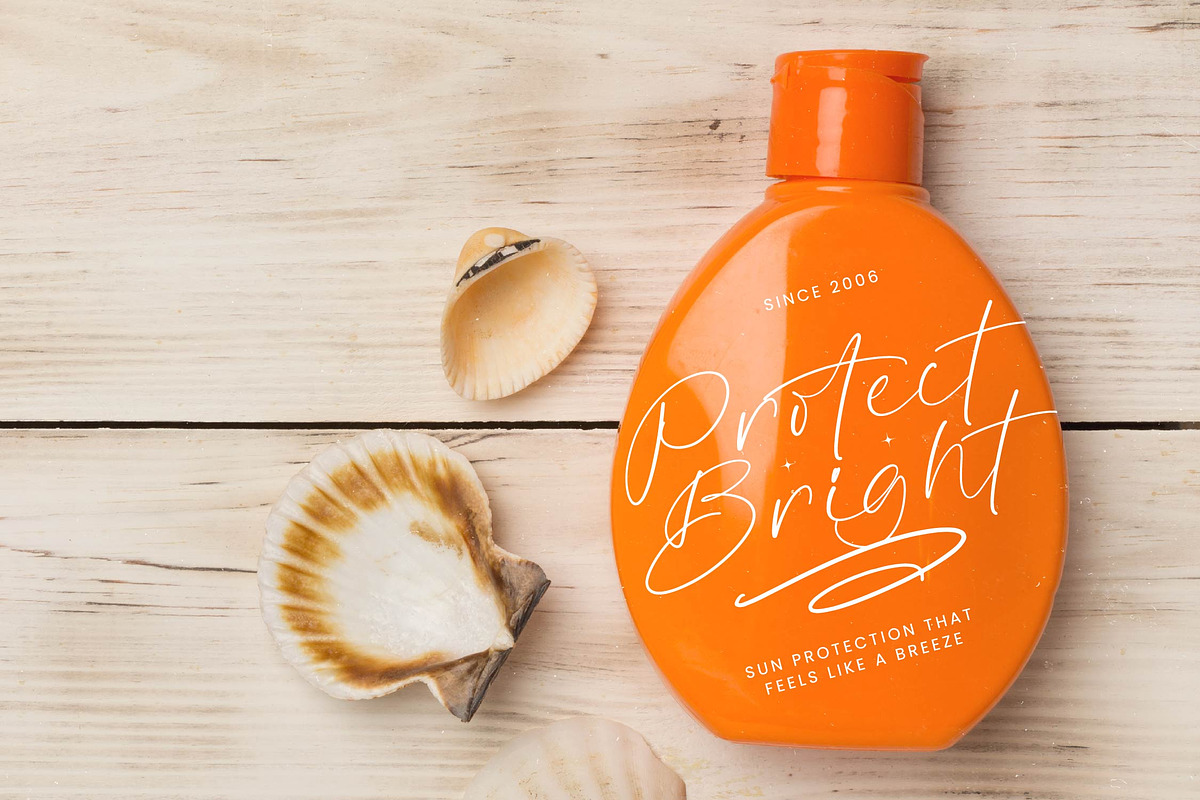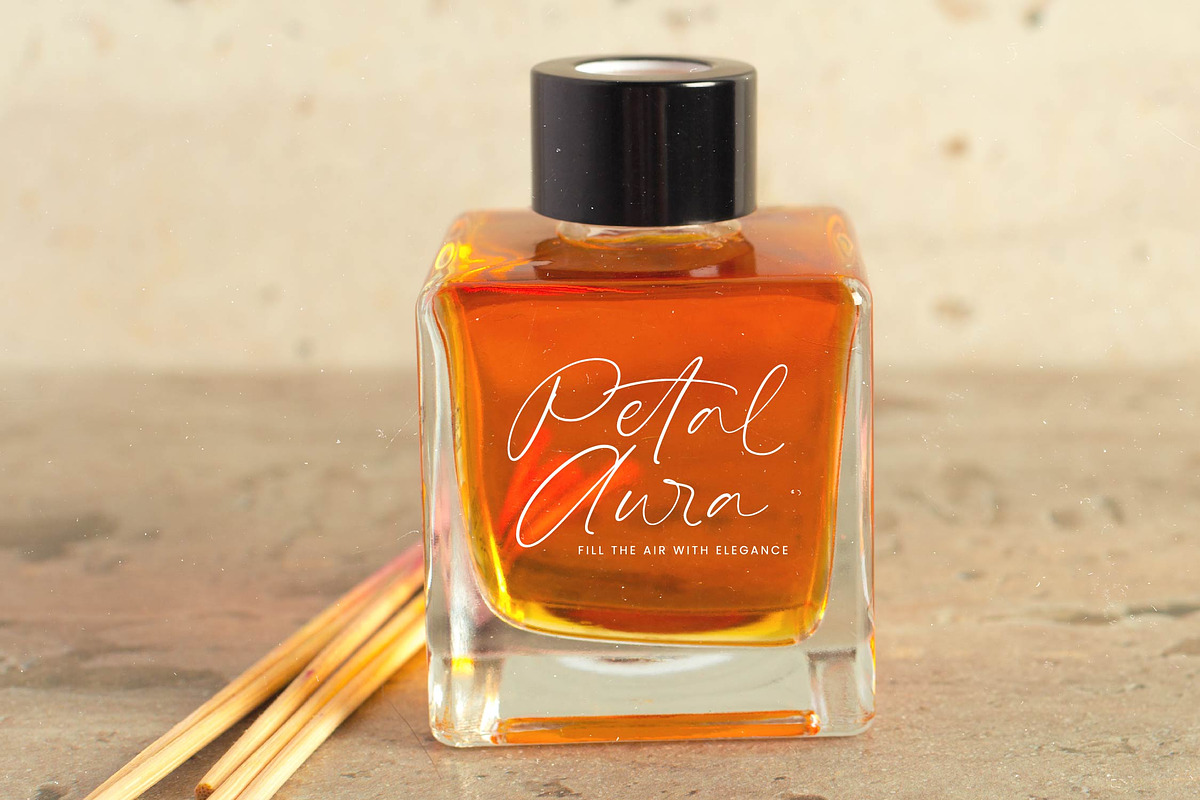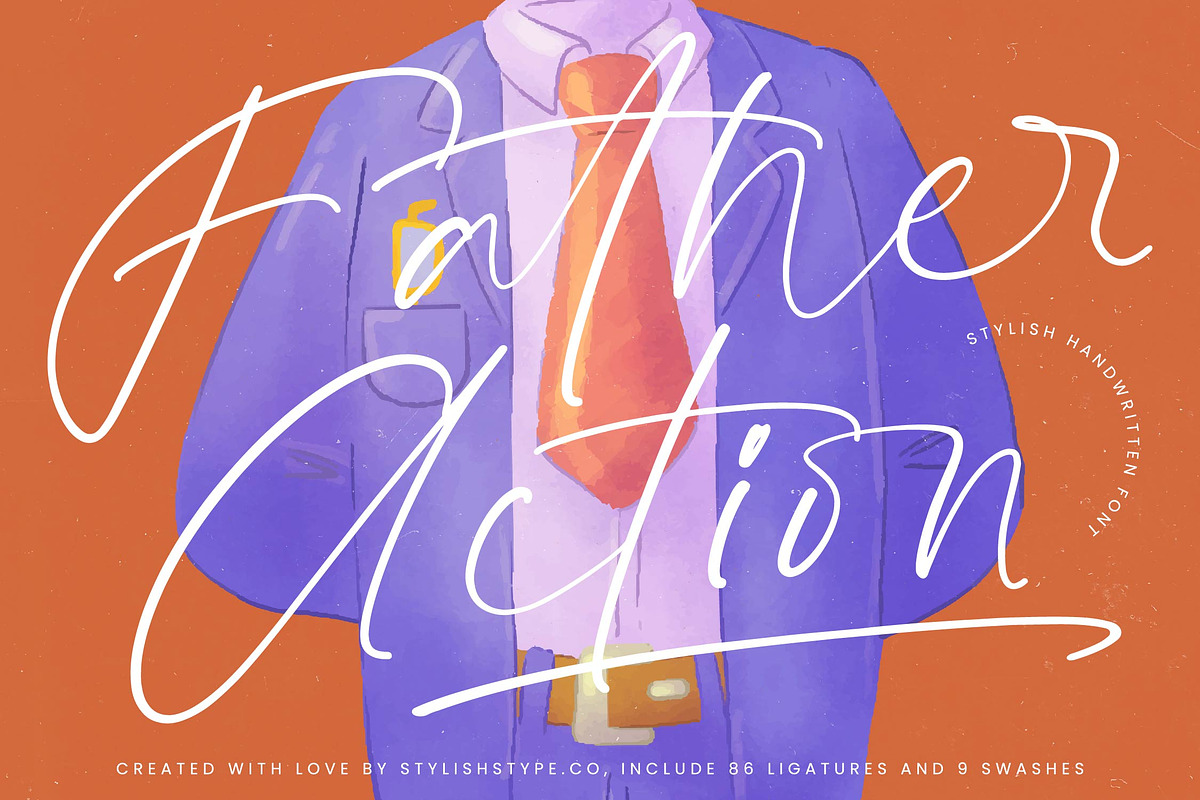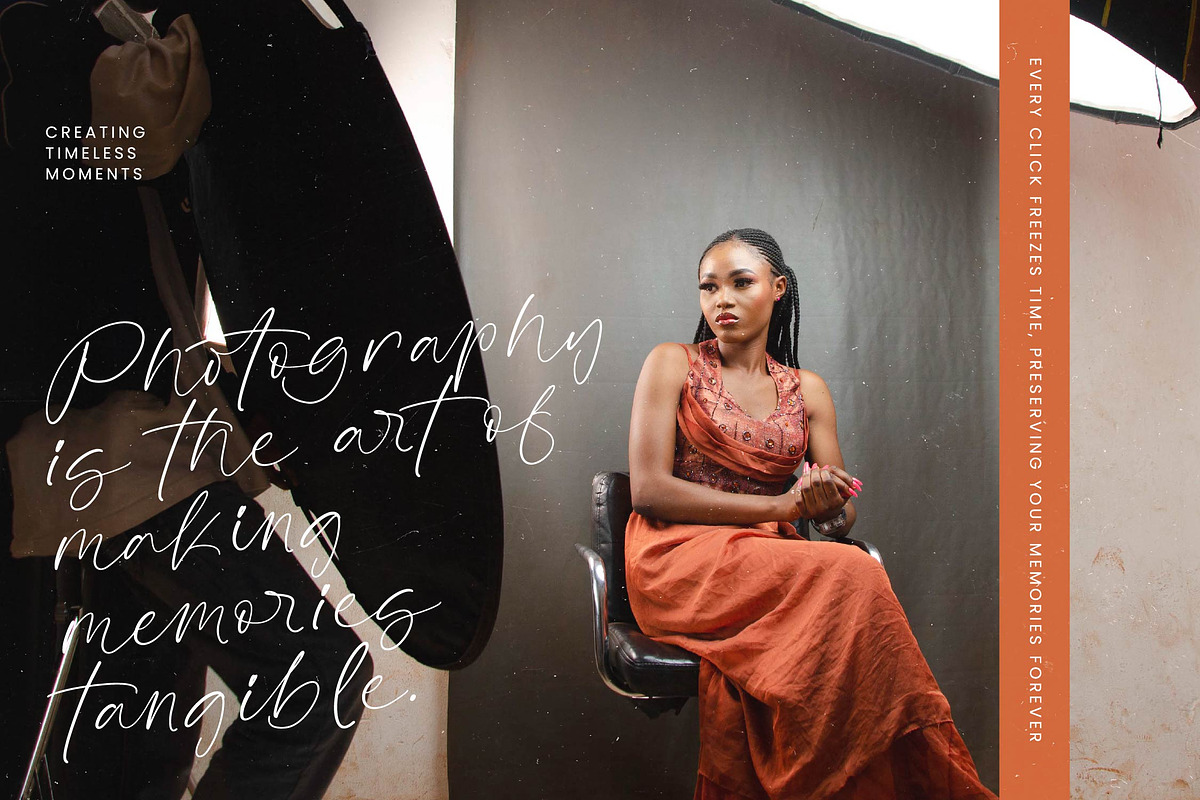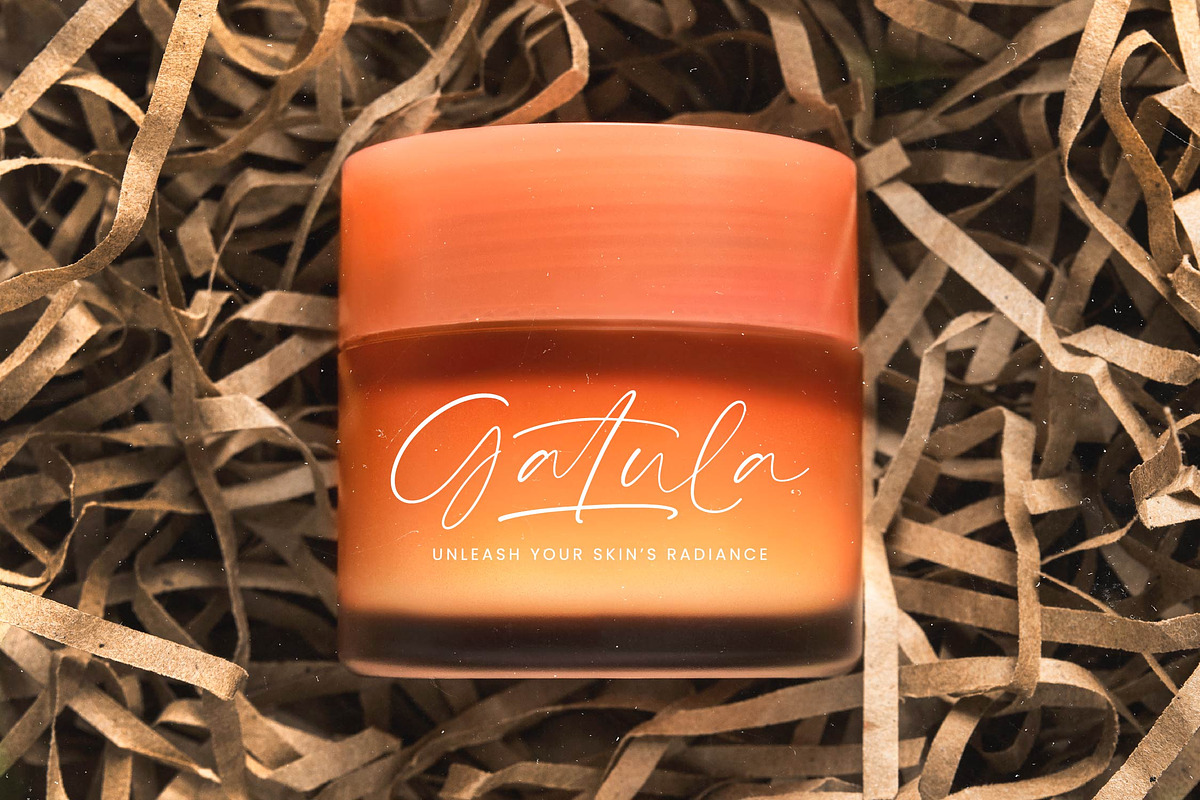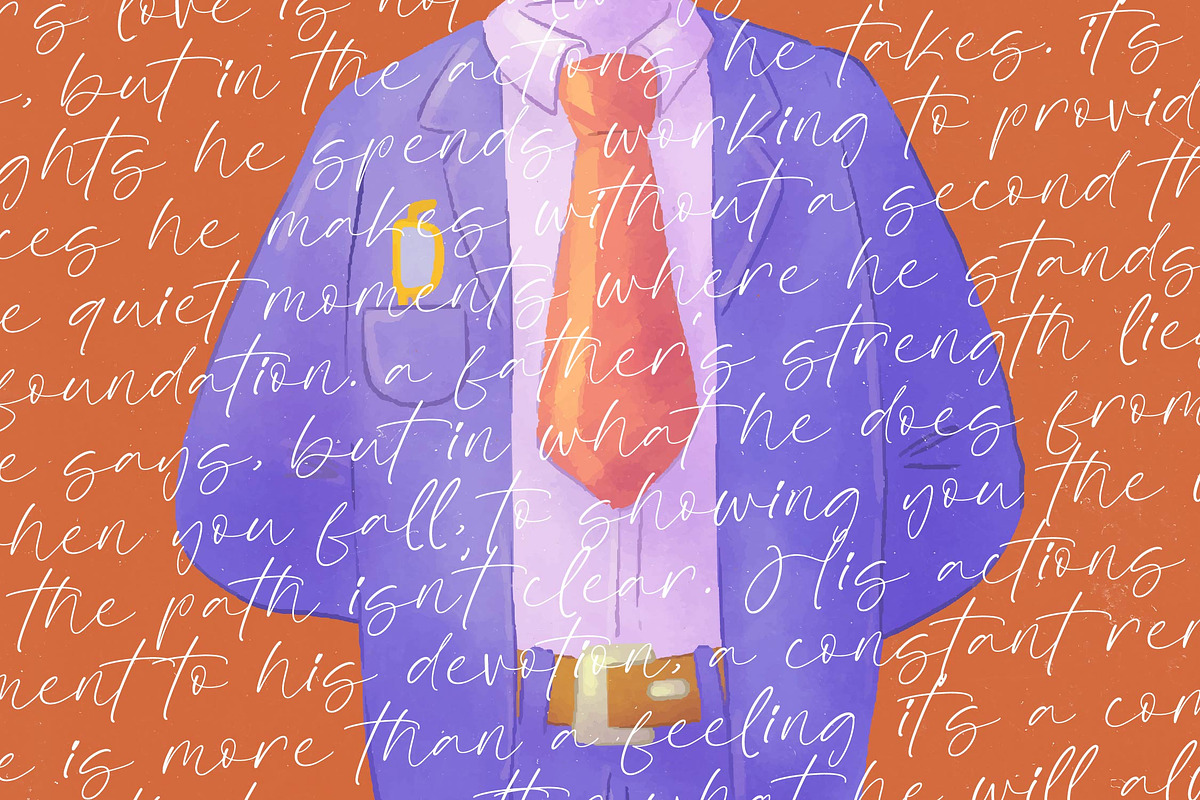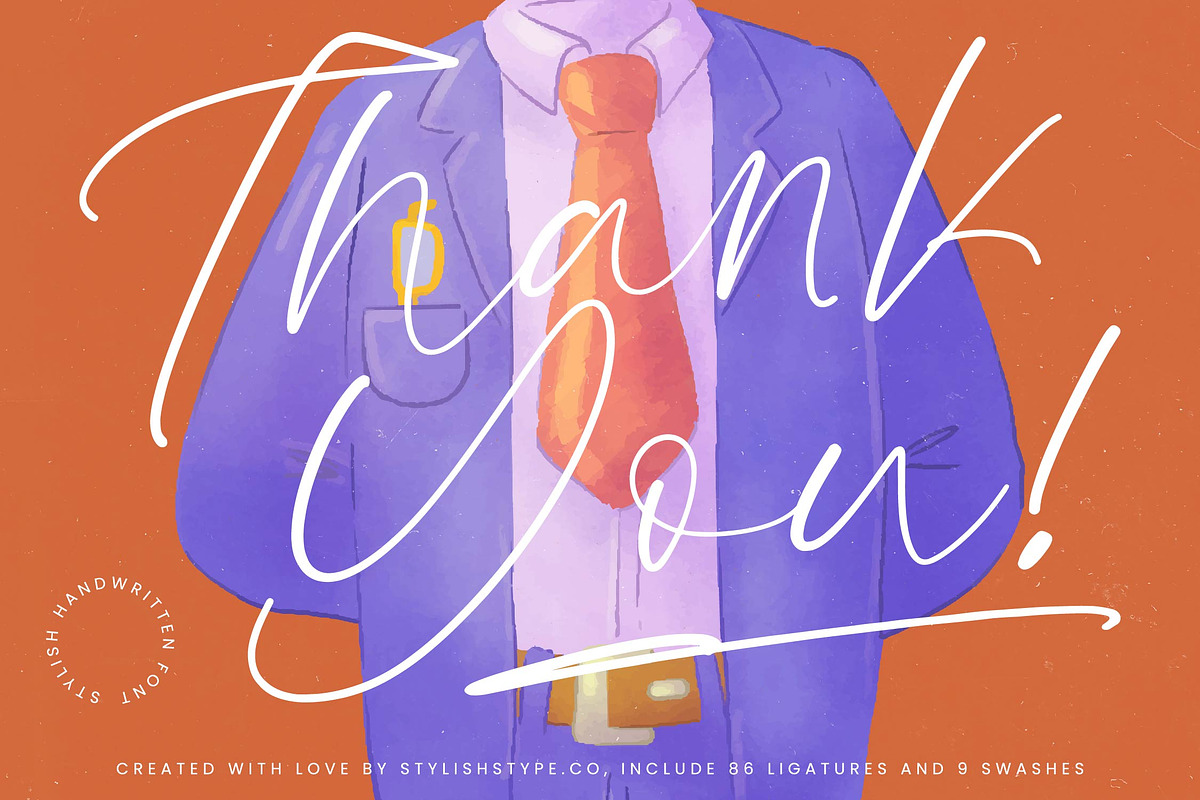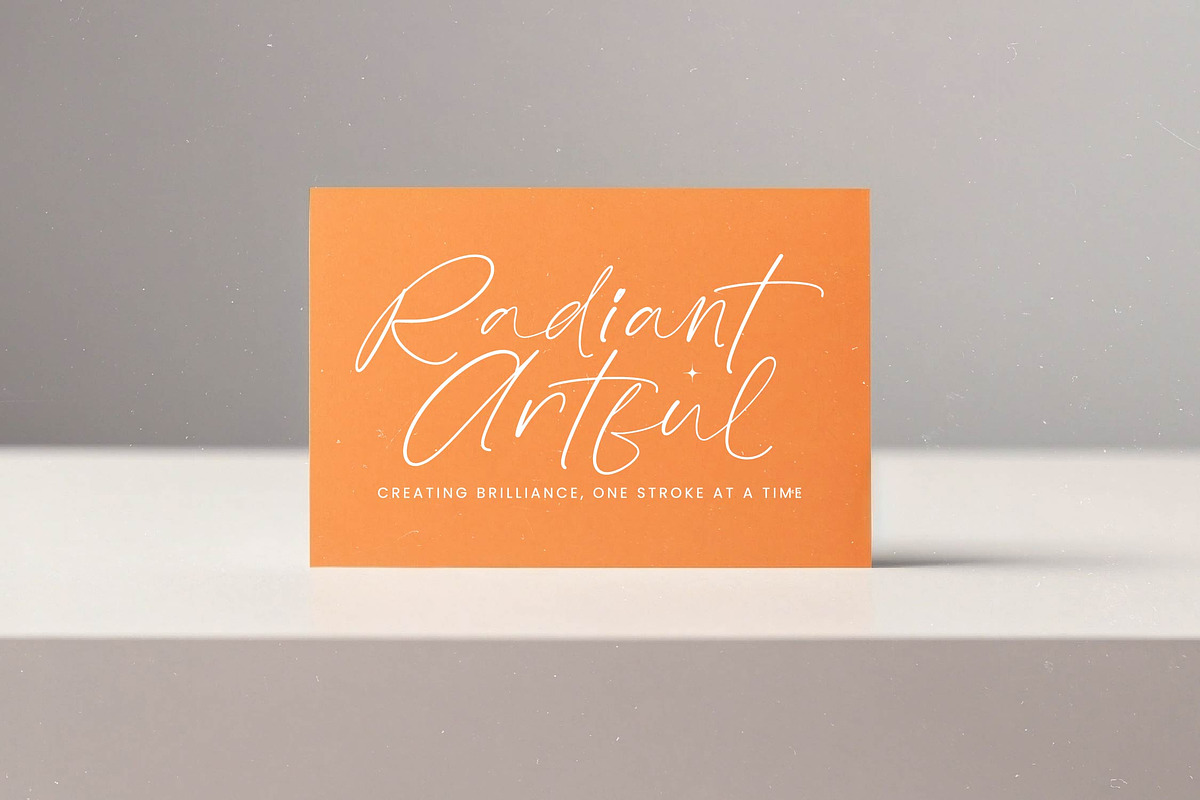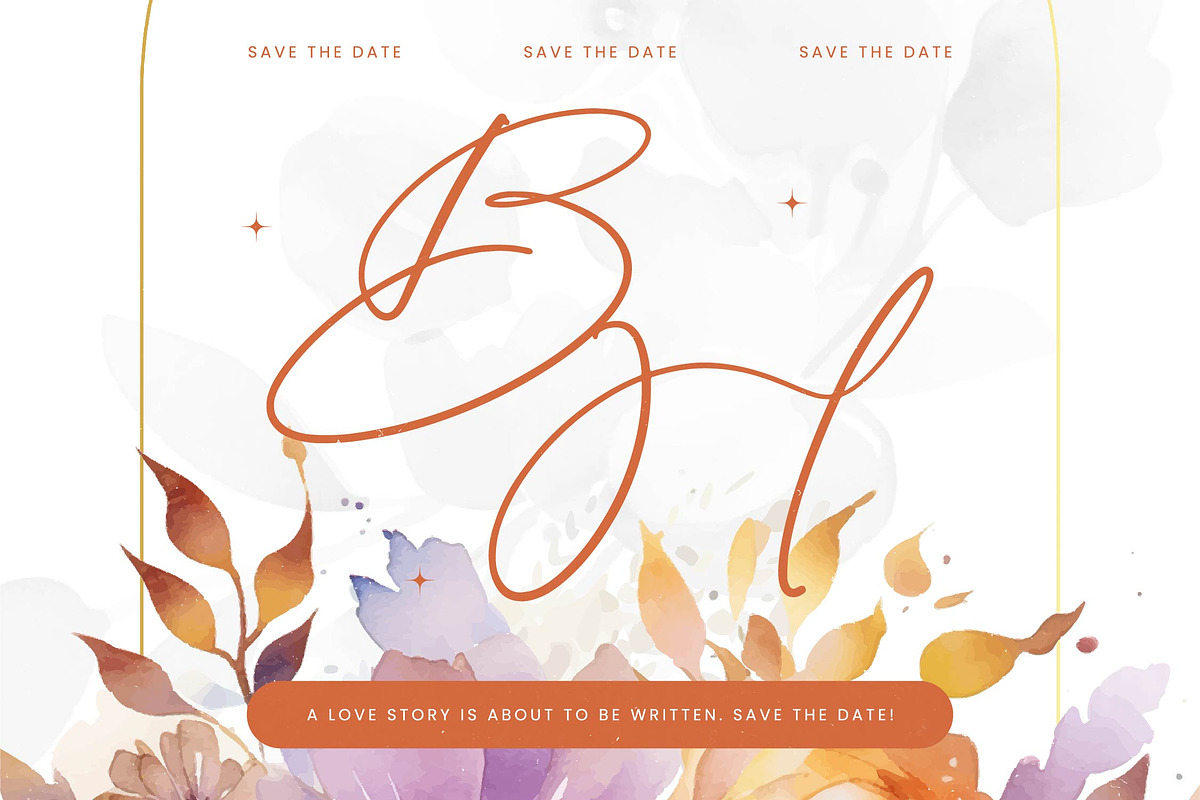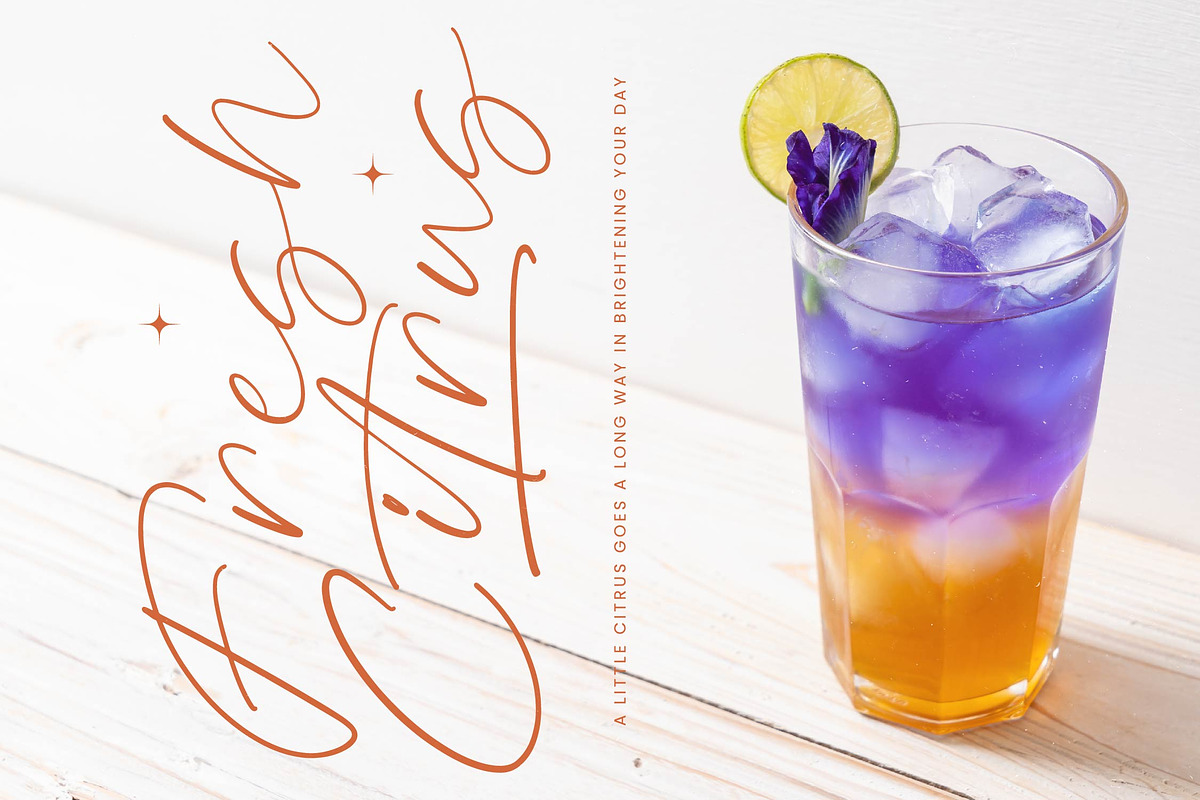
Father Action Stylish Handwritten
Father Action- Stylish Handwritten Font , from Stylishtype.Co , Suitable for any projects such as: logos, branding projects, homeware designs, product packaging, mugs, quotes, posters, shopping bags, t-shirts, book covers, name card, invitation cards, greeting cards, label, photography, watermark, special events, and all your other luxury and beautiful projects that need a Luxury Script taste.
- 86 Ligature Alternates & 9 Swashes